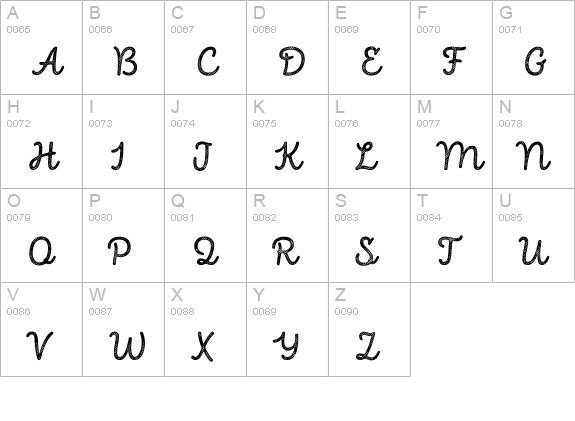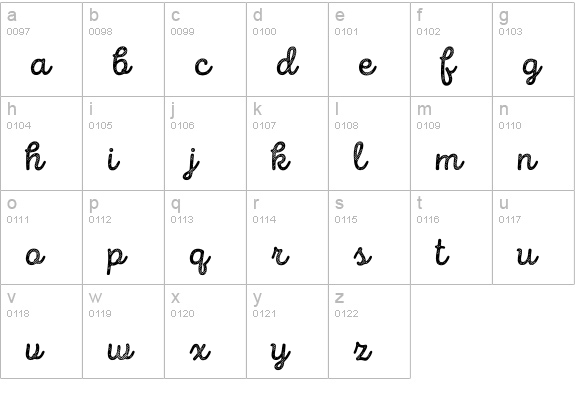
Intro Script B L Base Font Details
Intro Script B L Base font is a stunning display font that exudes elegance and sophistication. Its flowing lines and intricate details make it perfect for adding a touch of class to any design project. This font is versatile and can be used for a variety of purposes, from branding to editorial design. The best part about Intro Script B L Base font is that it is completely free to download at FontsMarket.com. That's right, you can add this beautiful font to your collection at no cost at all. Whether you're a designer looking to elevate your projects or a hobbyist wanting to experiment with different typefaces, Intro Script B L Base font is a fantastic choice. Download it today and see the magic it brings to your designs.